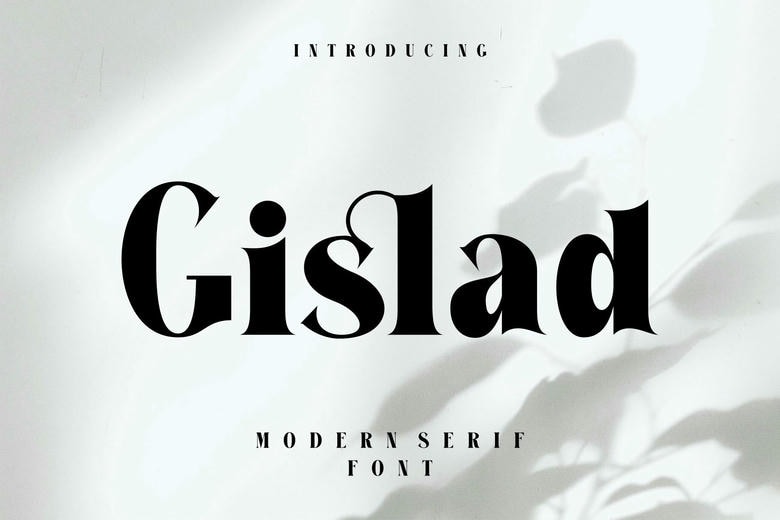
Gislad Font
Gislad feels playfully nostalgic and delivers an incredible vintage aesthetic. Use this serif font to add that special retro touch to any design idea you can think of! The free version provides all uppercase and lowercase letters and a few special characters too.
Gislad Serif Font